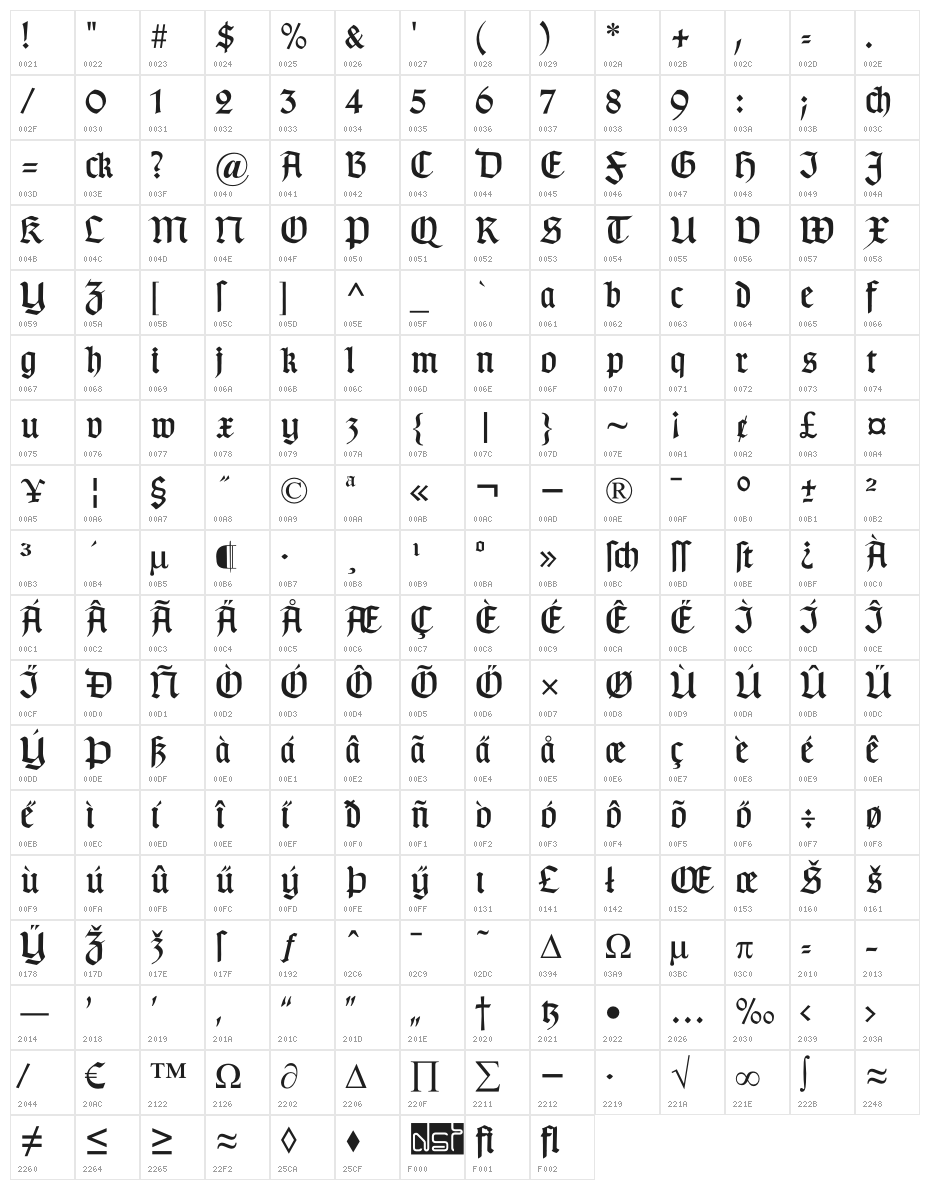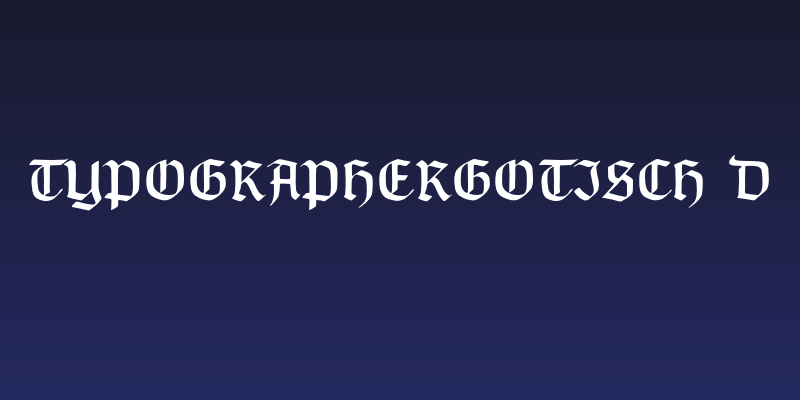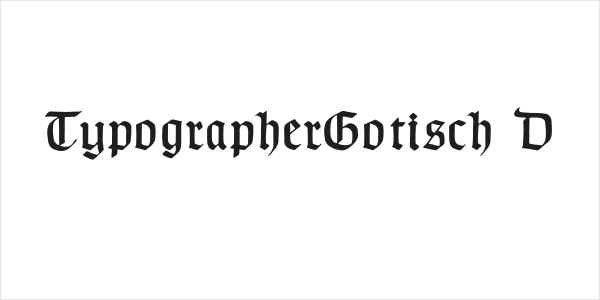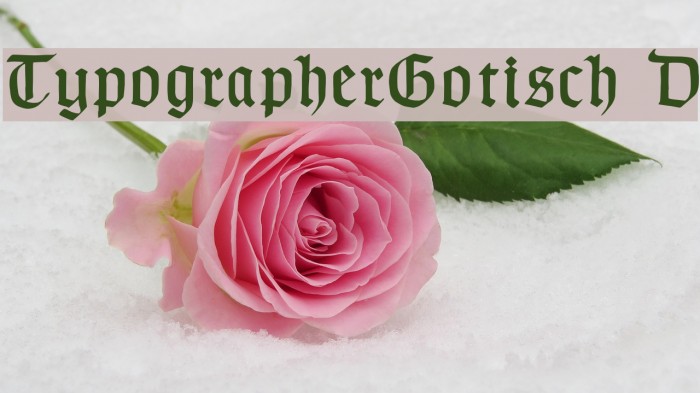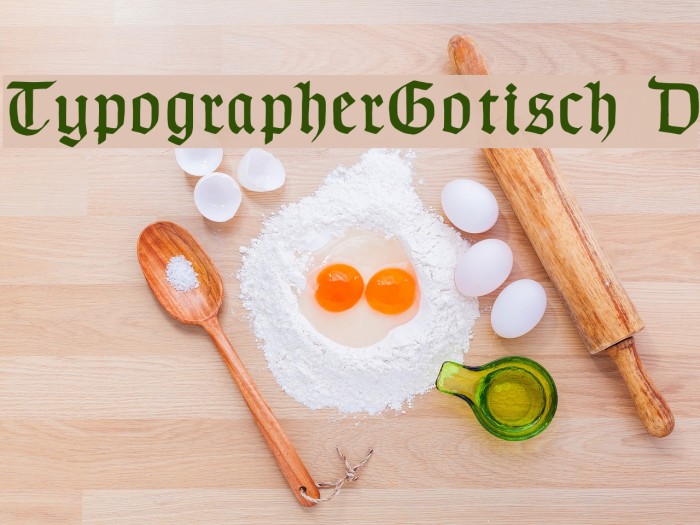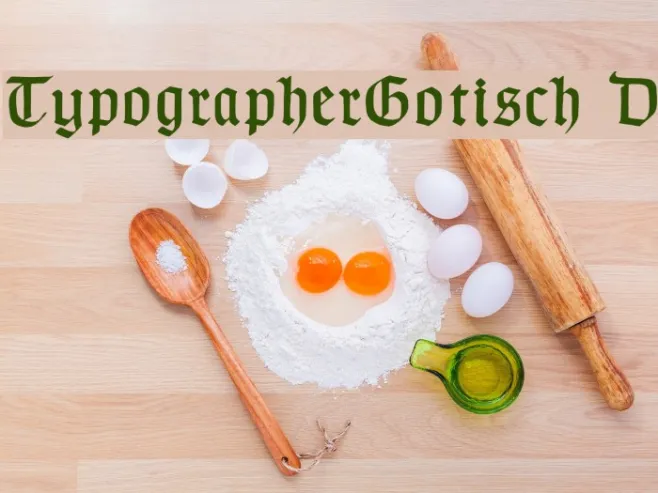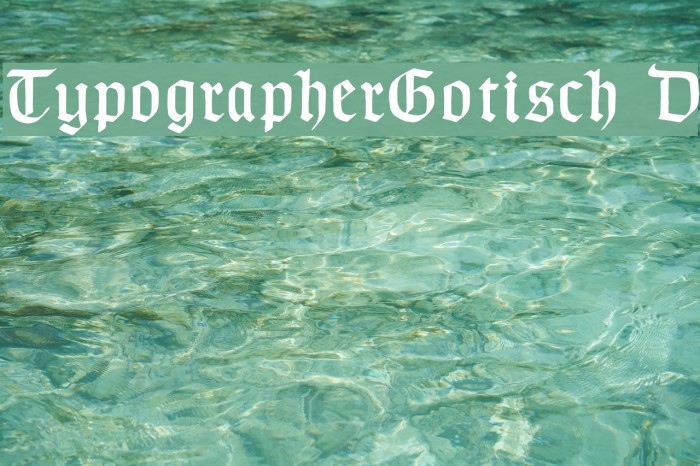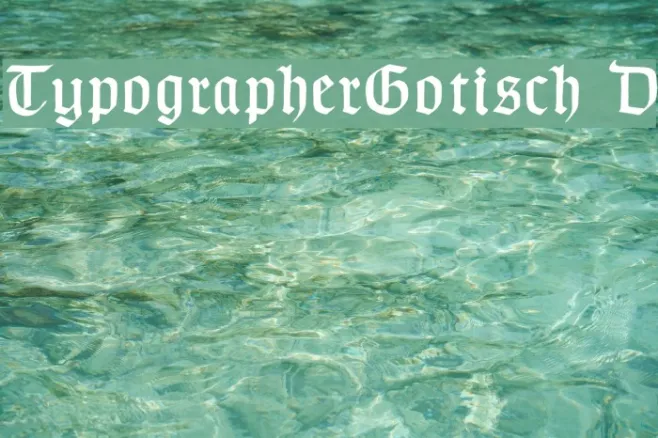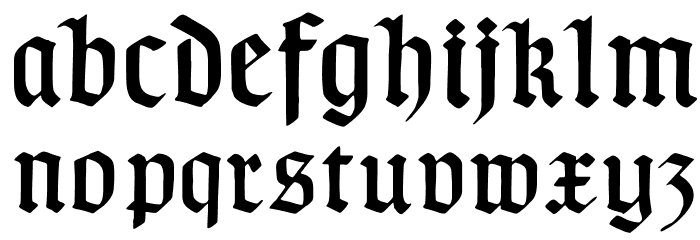
TypographerGotisch D Font
TypographerGotisch D Description
This font features a classic blackletter style, characterized by its intricate and ornate letterforms. The uppercase letters exhibit sharp, angular lines with dramatic flourishes, while the lowercase letters maintain a consistent gothic aesthetic. The numerals are bold and maintain the same stylistic elements, ensuring cohesion across all characters. The special characters are equally detailed, adding to the overall medieval and historical feel of the typeface. This font is ideal for projects that require a touch of elegance and tradition, such as certificates, invitations, or branding that seeks to evoke a sense of heritage.